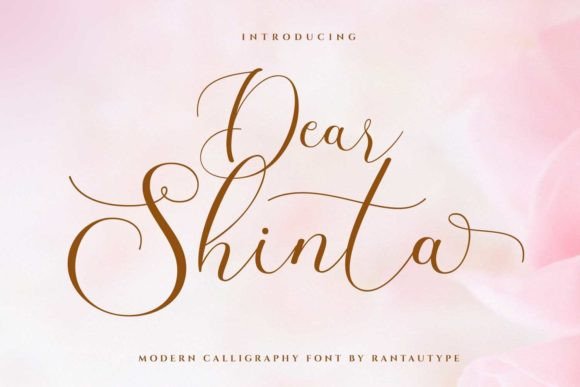
Immerse yourself in the world of elegance and grace with Dear Shinta, a script font that weaves a spell of modern sophistication. Its fluid letterforms dance across the page like a gentle breeze, creating a symphony of visual artistry. Each stroke is meticulously crafted to capture the essence of beauty, evoking a sense of wonder and allure.
Unleash your creativity with Dear Shinta, the perfect companion for branding projects that demand a touch of refined luxury. Let its delicate curves and elegant lines elevate your logos, making them stand out from the crowd. Craft wedding invitations that exude romance and charm, leaving a lasting impression on your guests. The possibilities are endless with Dear Shinta, your gateway to a world of timeless elegance.
Dive into the realm of fashion blogging with Dear Shinta, your secret weapon to captivating visuals. Its effortless flow and striking presence will make your blog posts shine, drawing readers into your world of style and inspiration. Create eye-catching headlines that demand attention, and let the text flow seamlessly, like a river of eloquence. With Dear Shinta, your fashion blog will be a captivating masterpiece, leaving your audience spellbound.